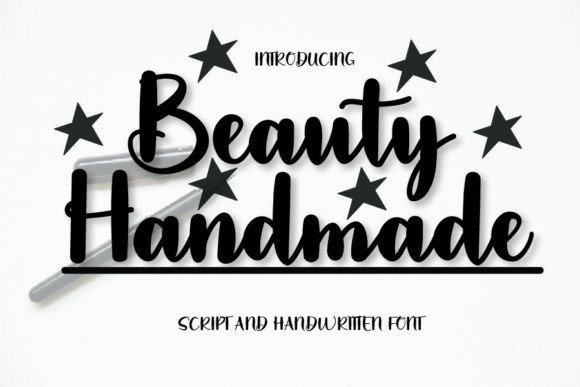
Introducing Beauty Handmade Font: Elevate Your Designs with Timeless Elegance
In the world of typography, a beautiful font can make all the difference in elevating your designs to the next level. If you’re looking for a stylish and contemporary handwritten font that exudes elegance and sophistication, look no further than Beauty Handmade Font. Inspired by timeless classic calligraphy, this font is designed to bring a touch of refinement and poise to your projects.
What is Beauty Handmade Font?
Beauty Handmade is a stylish handwritten font with a contemporary atmosphere and impeccable form. This font is the perfect blend of traditional calligraphy and modern design, making it ideal for a wide range of applications, from branding and advertising to packaging and digital media.
With its balanced and varied letterforms, Beauty Handmade Font is designed to enhance the beauty of your projects. The font features a unique and elegant style that is sure to capture the attention of your audience and leave a lasting impression.
Key Features of Beauty Handmade Font
- Stylish Handwritten Design: Beauty Handmade Font boasts a stylish handwritten design that is both contemporary and elegant.
- Timeless Classic Calligraphy Inspiration: Inspired by timeless classic calligraphy, this font brings a touch of refinement and poise to your designs.
- Balanced and Varied Letterforms: The font features balanced and varied letterforms that are designed to enhance the beauty of your projects.
- Impeccable Form: With its impeccable form, Beauty Handmade Font is perfect for a wide range of applications, from branding and advertising to packaging and digital media.
Who Can Benefit from Beauty Handmade Font?
Beauty Handmade Font is perfect for a wide range of designers, artists, and businesses looking to elevate their designs with a touch of elegance and sophistication. This includes:
- Graphic Designers: Graphic designers can use Beauty Handmade Font to create stunning branding and advertising materials, such as logos, brochures, and posters.
- Digital Media Professionals: Digital media professionals can use this font to create engaging and interactive content, such as social media graphics, website headers, and email newsletters.
- Packaging Designers: Packaging designers can use Beauty Handmade Font to create eye-catching and elegant packaging designs that stand out on store shelves.
- Artists and Crafters: Artists and crafters can use this font to add a touch of elegance and sophistication to their artwork, crafts, and DIY projects.
Tips and Tricks for Using Beauty Handmade Font
Here are some tips and tricks to help you get the most out of Beauty Handmade Font:
- Use it Sparingly: Use Beauty Handmade Font sparingly to create emphasis and add elegance to your designs.
- Pair it with Other Fonts: Pair Beauty Handmade Font with other fonts to create a unique and visually appealing typography.
- Experiment with Colors: Experiment with different colors to find the perfect match for your design.
- Pay Attention to Kerning: Pay attention to kerning to ensure that the font looks balanced and visually appealing.
In conclusion, Beauty Handmade Font is a stylish and elegant handwritten font that is perfect for designers, artists, and businesses looking to elevate their designs with a touch of sophistication and refinement. With its timeless classic calligraphy inspiration, balanced and varied letterforms, and impeccable form, this font is sure to enhance the beauty of your projects.